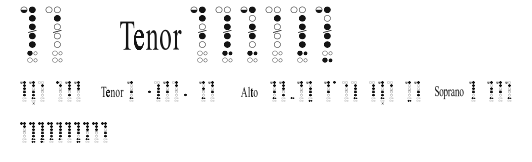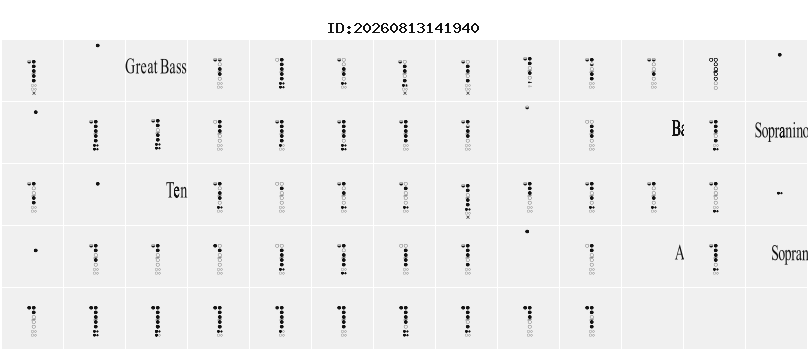
Recorders Preview
• Font Name: Recorders
• Designer: Hiawatha, 2013
• Manufacturer: Dr H Fontricks, Unc.
• Description: Music font containing symbols specific to notating fingerings for Recorders (Baroque Fingerings).
About Recorders.ttf